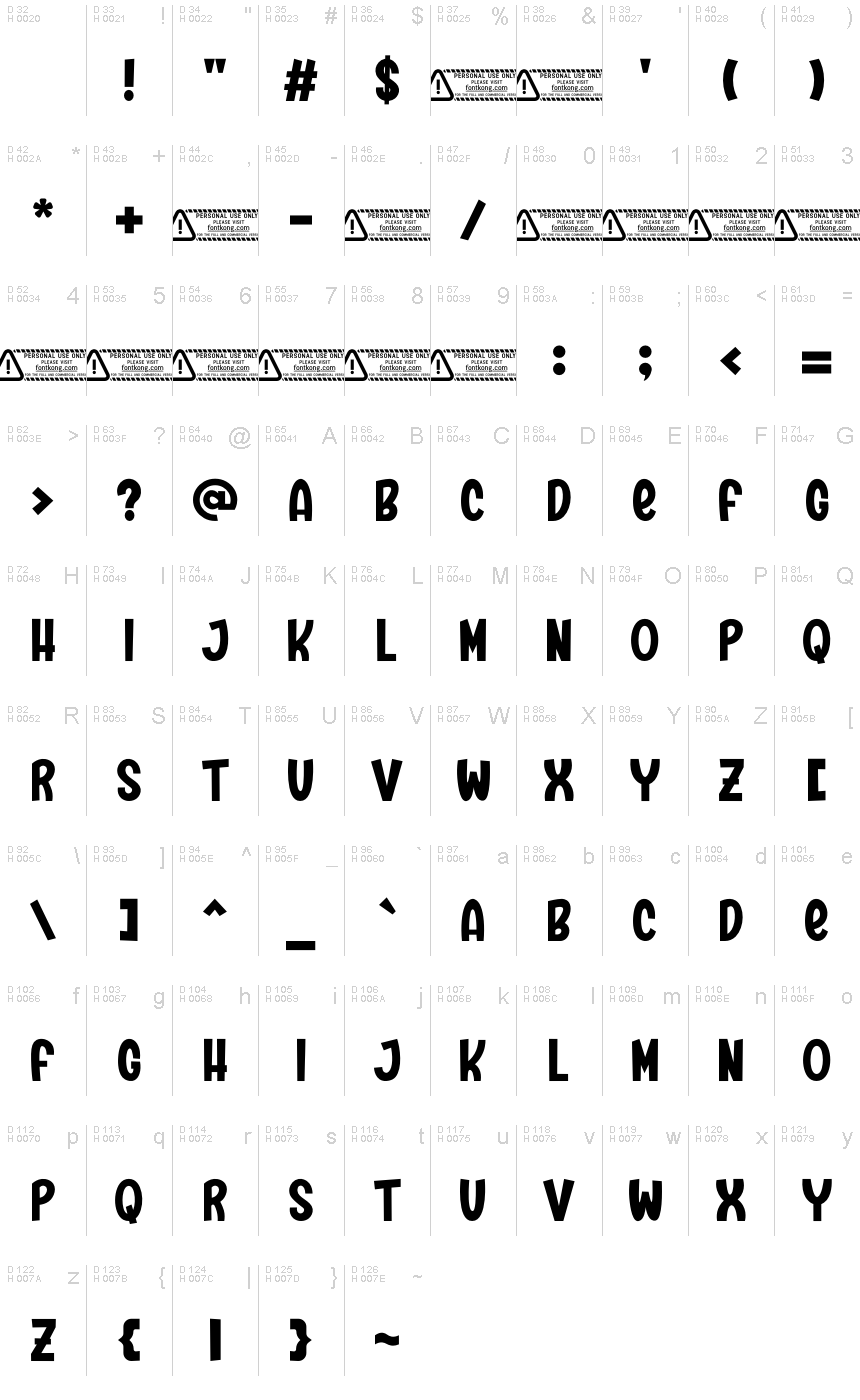
Cherry font by Kong Font is a captivating display typeface that exudes playful charm. With its cartoon style, bold weight, and condensed width, Cherry font stands out in any design project. Its lively and rounded characters make it perfect for eye-catching headlines, children's books, or fun branding campaigns.
Whether you're looking to inject whimsy into your visuals or seeking a free font download to enrich your creative toolkit, Cherry effortlessly combines style with functionality. Ideal for designers aiming to craft memorable work that resonates with audiences of all ages. Embrace the vibrant spirit of the Cherry font today!